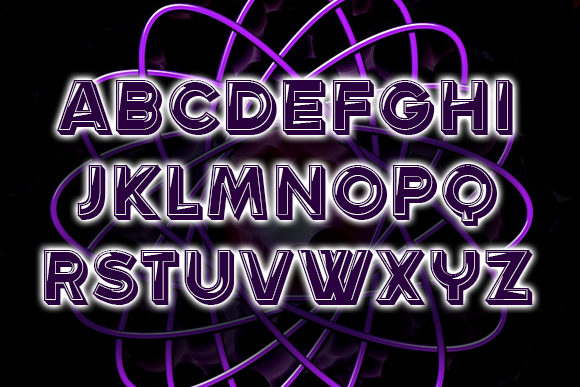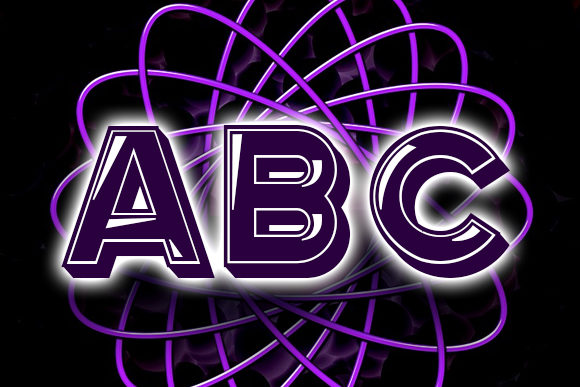
Introduction to Nucleus Font
You’ve spent hours working on your latest creative project, pouring your heart and soul into every detail. But just as you’re about to export your final design, you realize that something is missing – a font that truly makes your work pop.
Enter the Nucleus Font, a game-changing display font that is sure to elevate any design to the next level. With its shiny, thick letters and bold design, this font is the perfect addition to any designer’s library. Whether you’re working on a logo, poster, or even a transparent background design, the Nucleus Font is the ultimate design resource that will take your creations to new heights.
What sets the Nucleus Font apart is its versatility and high-quality design. This means that it’s not just a great font for a specific project, but a valuable asset that can be used across a wide range of creative endeavors. And the best part? It’s available for free download, making it an essential addition to any designer’s toolkit.
Key Features of Nucleus Font
- High-quality, professional font ideal for creative projects, with a clean and modern design.
- Features a transparent background, allowing for seamless integration with any design or image.
- Unique characteristics include a sleek, geometric design and a wide range of customization options.
- Perfect for use in logos, branding materials, and other design elements where a high-quality font is essential.
Honest Review: Nucleus Font
The Nucleus Font is a high-quality design resource that I’ve had the pleasure of working with on several creative projects. One of the things that I love about this font is its versatility. It’s perfect for projects that require a clean and modern aesthetic, and it works well in a variety of contexts, from digital design to print media. ✨
- Easy to read and understand, making it perfect for digital displays and transparent background designs.
- Works well in both large and small sizes, making it a great choice for headers and body text.
That being said, there are a few limitations to be aware of. ⚠️ The Nucleus Font is a bit limited in terms of its character set, which can make it difficult to use in certain languages. Additionally, the font is not as customizable as some other options, which can be a drawback for designers who like to have more control over their typography.
Overall, I’m really impressed with the Nucleus Font. It’s a great choice for designers who are looking for a high-quality, easy-to-use font that can help them create beautiful and effective designs. With its free download option and versatility, it’s definitely worth checking out.
Nucleus Font
The Nucleus Font is a high-quality, free download design resource perfect for any creative project. With its sleek and modern design, this font is ideal for creating visually appealing content.
The Nucleus Font is suitable for a wide range of applications, including business cards, brochures, and social media graphics. Its transparent background makes it easy to use on various backgrounds and designs.
To get the most out of the Nucleus Font, experiment with different font sizes, colors, and styles. You can also combine the font with other design elements, such as images and shapes, to create unique and eye-catching designs.